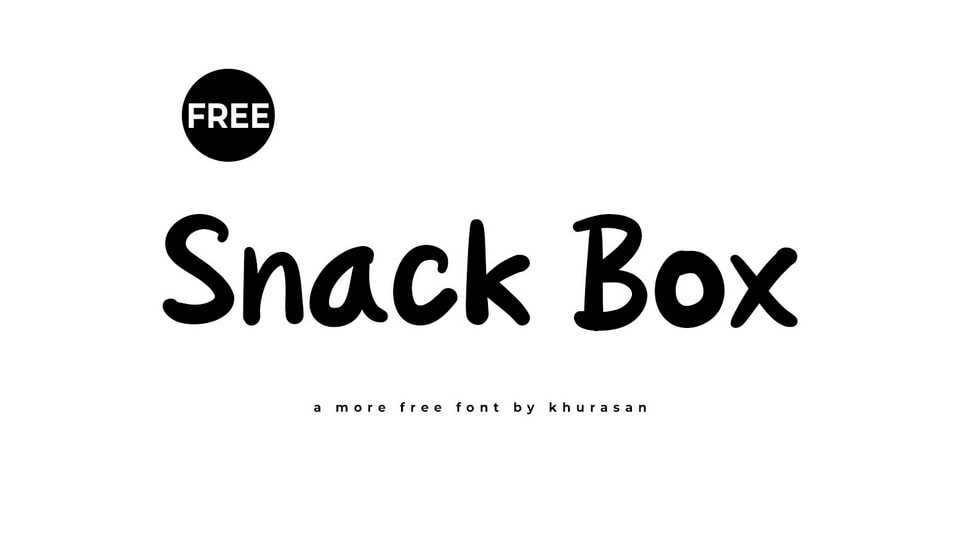
Download Snack Box font, a casual and organic hand-drawn typeface that brings a natural, artistic touch to your designs. Snack Box font is crafted with flowing strokes and ink-like textures, creating a typographic experience that feels spontaneous and expressive.